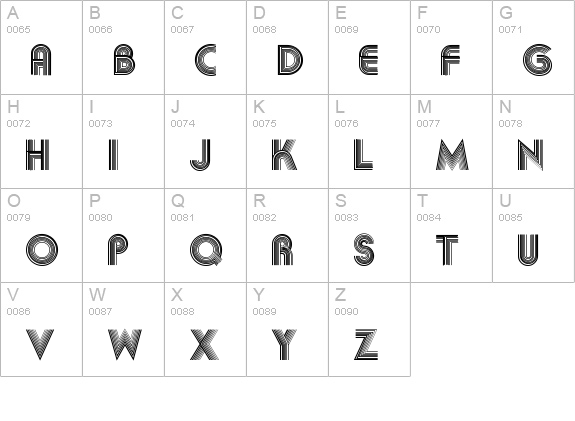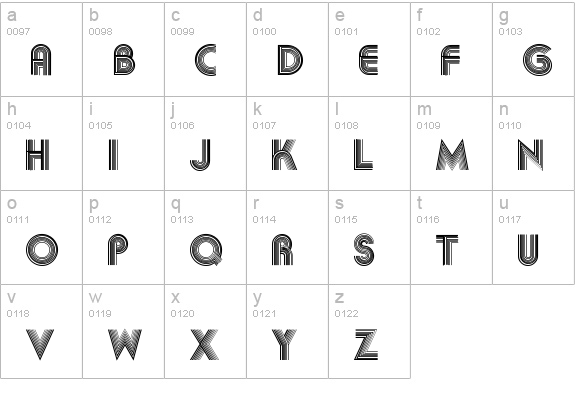
Solo Font Details
Introducing Solo font - a stunning typeface that effortlessly captures the essence of modern sophistication and timeless elegance. With its sleek and refined letterforms, Solo font is perfect for adding a touch of class to any design project. This versatile font exudes a sense of confidence and individuality, making it an ideal choice for both professional and personal use. Whether you're designing a sleek logo, creating captivating headlines, or crafting eye-catching social media graphics, Solo font will elevate your work to new heights. But what sets Solo font apart from the rest is that it is not only visually striking, but also freely available to download at FontsMarket.com. Yes, you read that right - this extraordinary font can be yours, completely free of charge. FontsMarket.com is proud to offer this gem to designers and creators worldwide, ensuring that everyone has access to top-quality typography without breaking the bank. With its extensive character set, Solo font supports multiple languages, allowing you to communicate your message effectively and effortlessly across borders. Its clean lines and balanced proportions make it highly legible, ensuring that your text is easily readable in any context. Whether used in print or digital media, Solo font will make a lasting impression. Its timeless appeal and contemporary flair make it a perfect choice for branding, packaging, editorial design, and much more. So go ahead, unleash your creativity and download Solo font for free at FontsMarket.com. Elevate your designs, captivate your audience, and make a statement with this remarkable typeface.